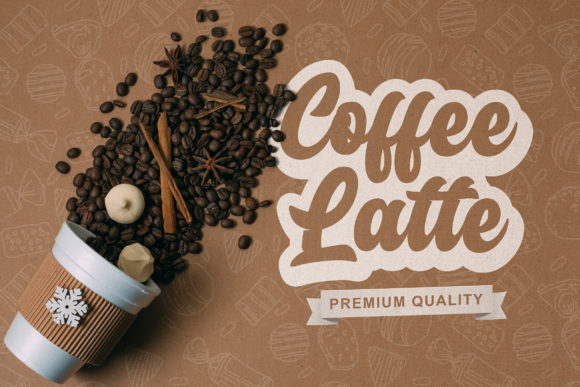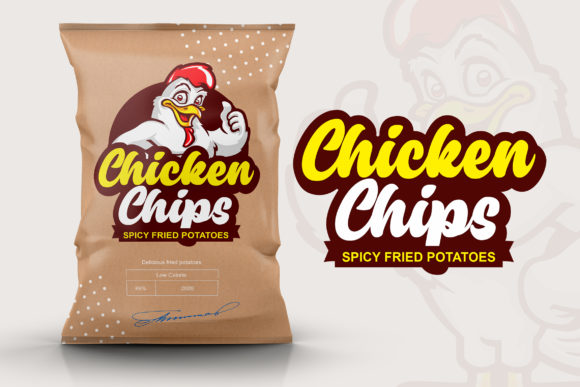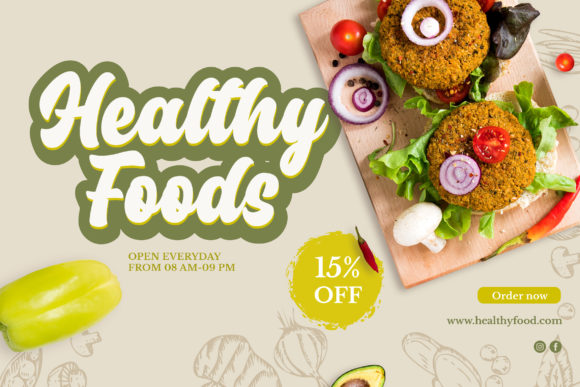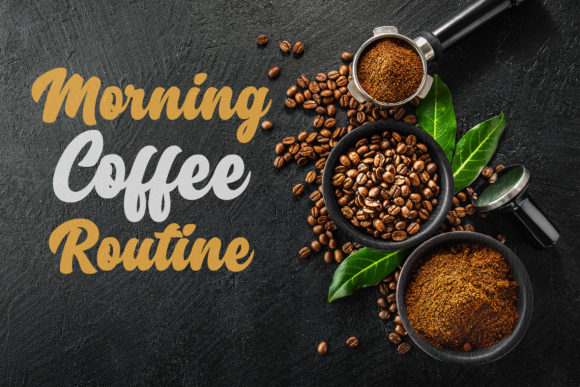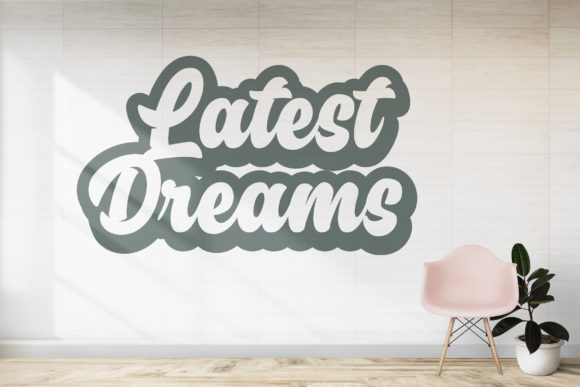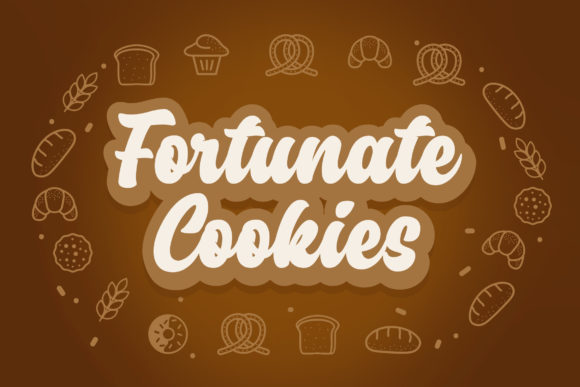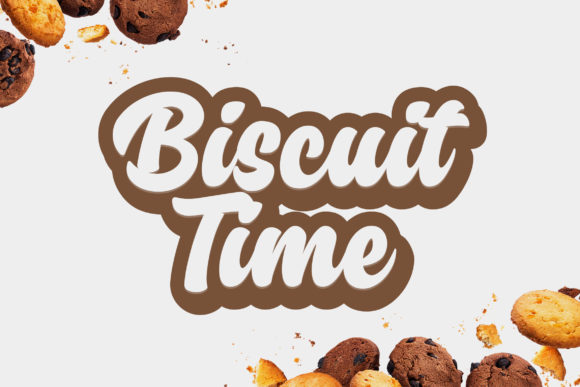
HomeScript FontsFeelin Sweet Font Script Fonts Feelin Sweet Font FacebookXPinterestWhatsApp Feelin Sweet Font Poster 2 Feelin Sweet Font Poster 3 Feelin Sweet Font Poster 4 Feelin Sweet Font Poster 5 Feelin Sweet Font Poster 6 Feelin Sweet Font Poster 7 Feelin Sweet Font Poster 8 About Feelin Sweet Font Feelin Sweet is a lovely script font with a cute feel. Get inspired by its nostalgic charm! DOWNLOAD ON CREATIVE FABRICAThis font is sold and delivered by Creative Fabrica. Font Canyon may earn a commission if you buy through this link. People also explored Kitchen Herbs Font Elizabeth Font Smiley Font Rainbow Font Saved Font Aldero The Pillego Font Something Font Queendom Font 354 0 TagsFeelin Sweet Font Previous articleElisa FontNext articleBordershine Font LEAVE A REPLY Cancel reply Comment: Please enter your comment! Name:* Please enter your name here Email:* You have entered an incorrect email address! Please enter your email address here Website: Save my name, email, and website in this browser for the next time I comment. Personal Use Free Arnitta Callina Personal Use Free Read more about this font Breather Personal Use Free Read more about this font Setta Personal Use Free Read more about this font Sweety Blue Personal Use Free Read more about this font BLOG Top 7 Google Fonts Alternatives for Faster and Privacy-Friendly Web Design (2025) Top 7 Google Fonts Alternatives for Faster and Privacy-Friendly Web Design (2025) When it comes to web typography, Google Fonts has long been the go-to... How to Cut Any Font on Cricut: Convert a Font to SVG (Free) 5 Fonts That Will Dominate Design Trends in 2026 Using Fonts in Digital Marketing: Tips to Strengthen Your Brand Identity